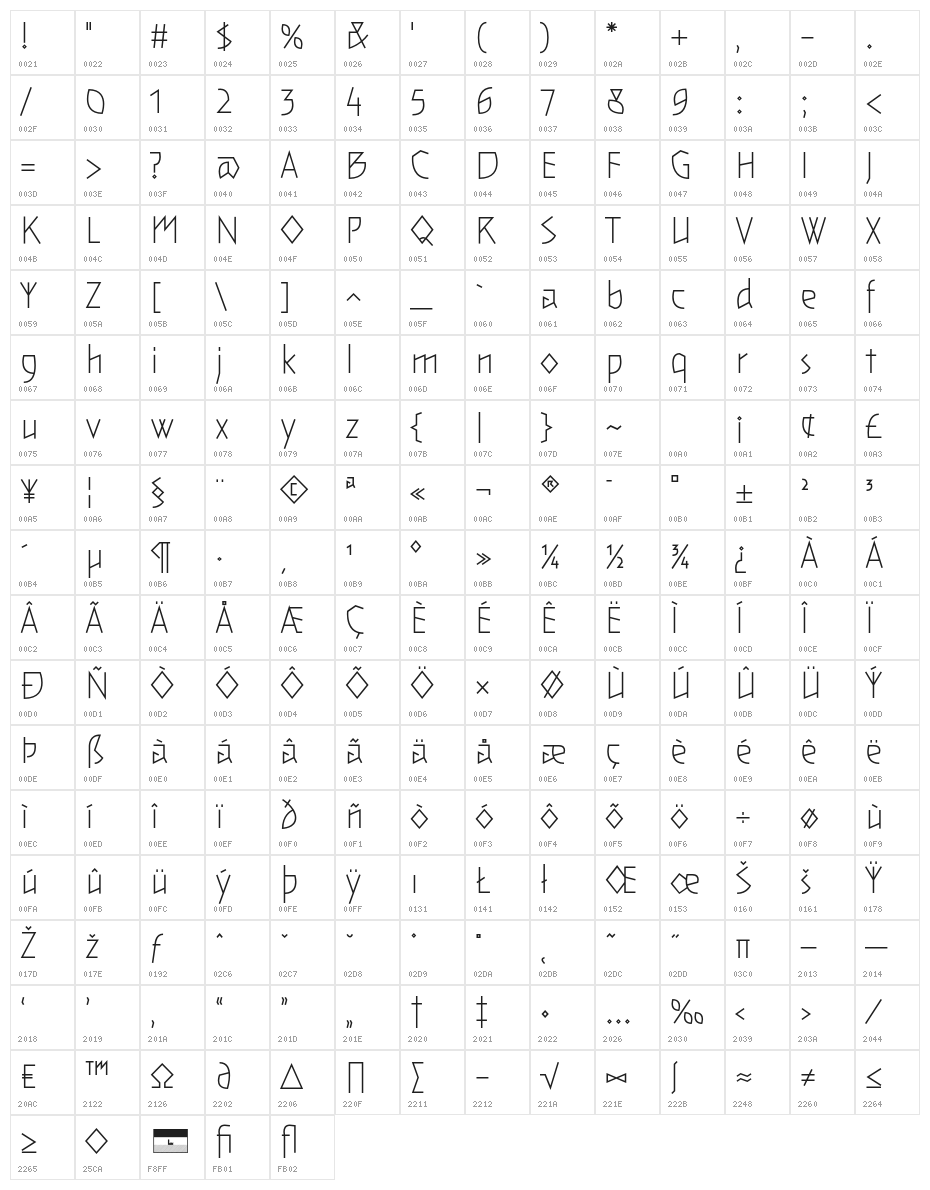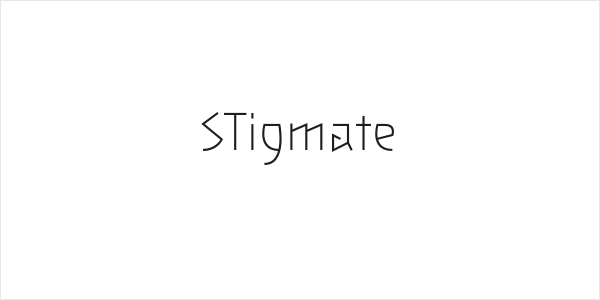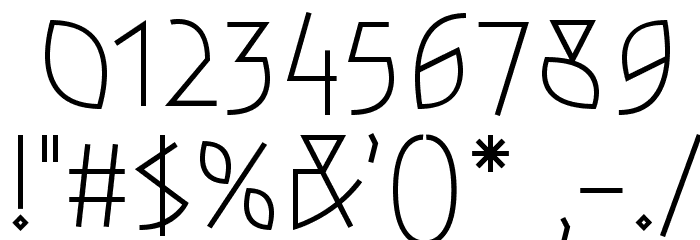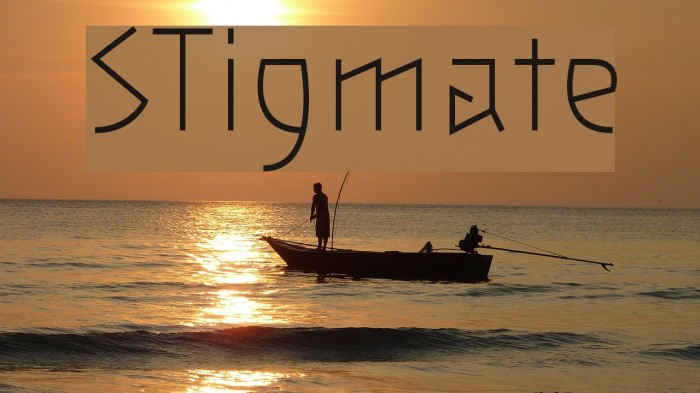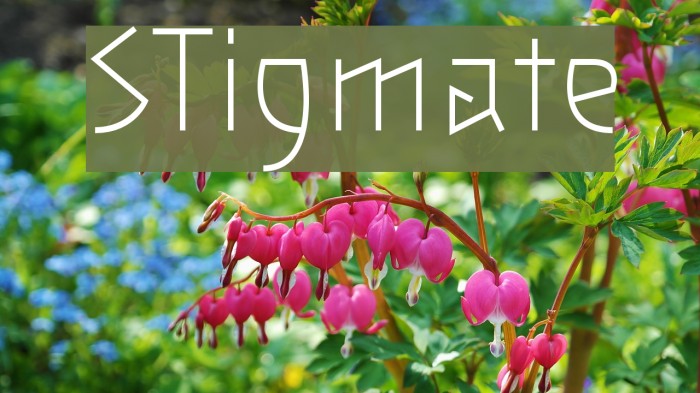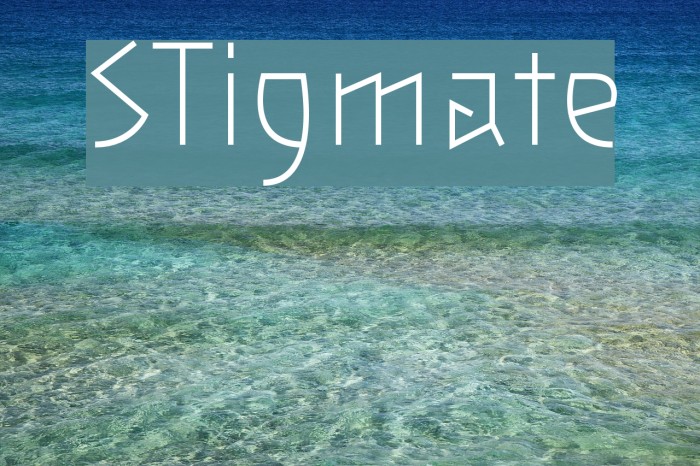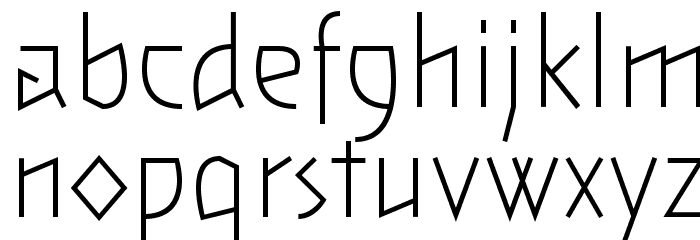
STigmate Font
STigmate Description
This font features a unique and modern geometric design with a distinct angular style. The uppercase and lowercase letters maintain a consistent height, creating a uniform appearance. The characters are constructed with clean, straight lines and sharp angles, giving it a futuristic and technical feel. The numerals and special characters follow the same design principles, ensuring a cohesive look across all glyphs. The font's minimalistic approach makes it suitable for contemporary design projects, where clarity and precision are essential.
| Use Case | Logos, Headlines, Digital Interfaces |
| Proposed Projects | Ideal for technology branding, modern posters, and digital interfaces. |